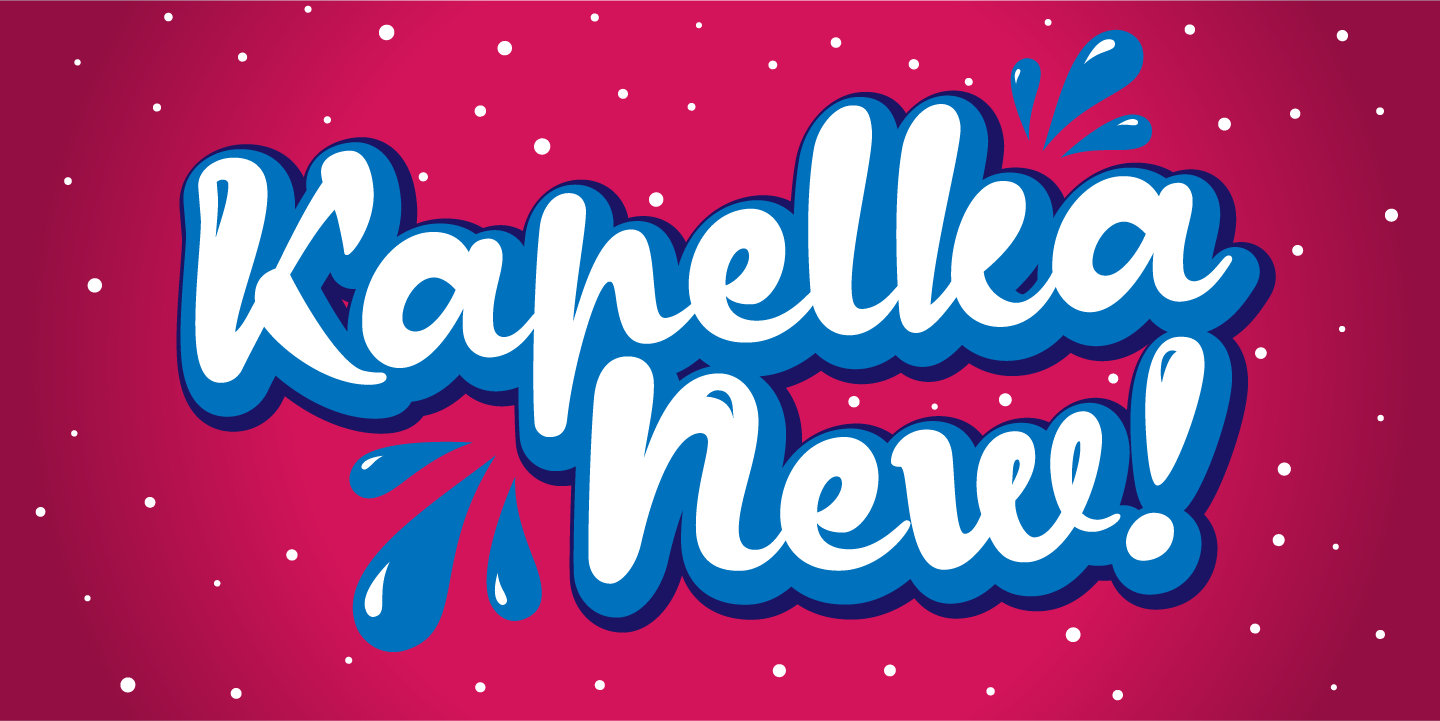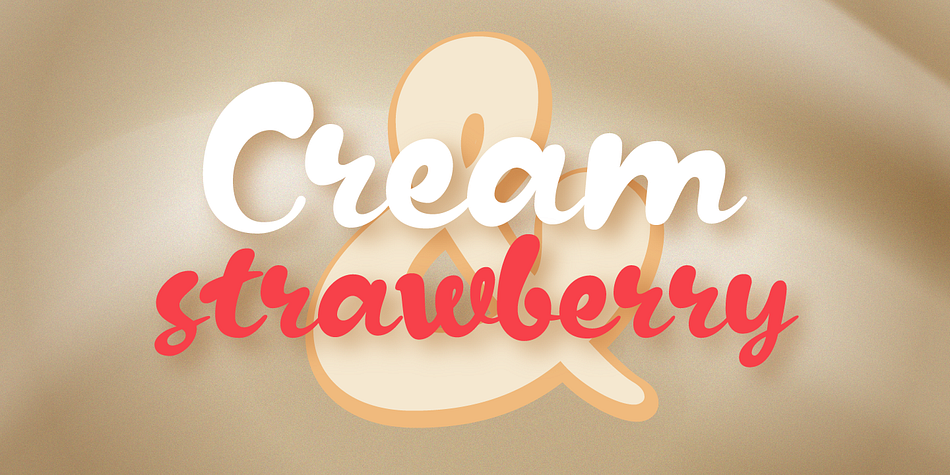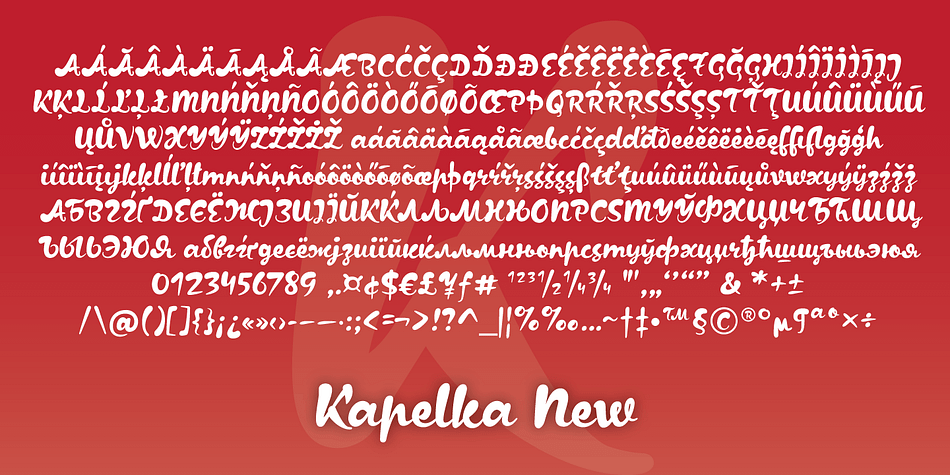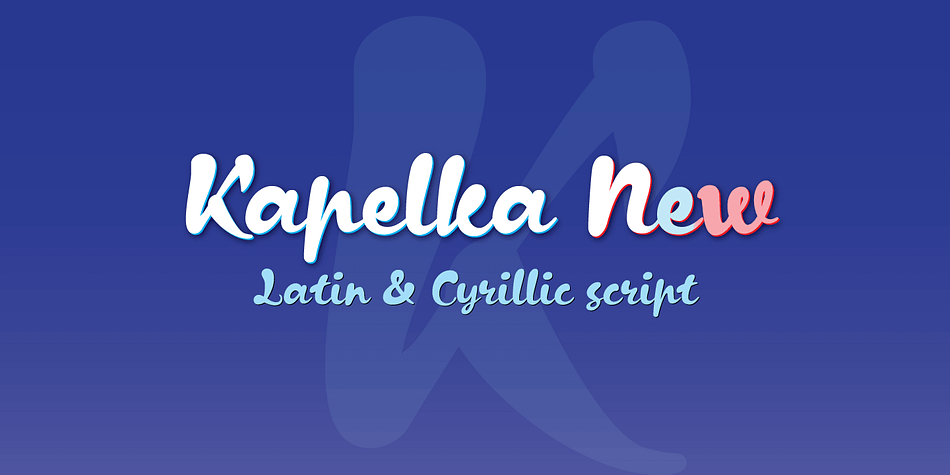
Kapelka New is a brush script font published by ParaType.
Kapelka New is a soft and friendly display face based on the principles of writing with a soft pointed brush. Kapelka is suitable for packaging design, children’s books headlines and any other domestic and informal purposes. The typeface was designed by Zakhar Yaschin and released by ParaType in 2015.